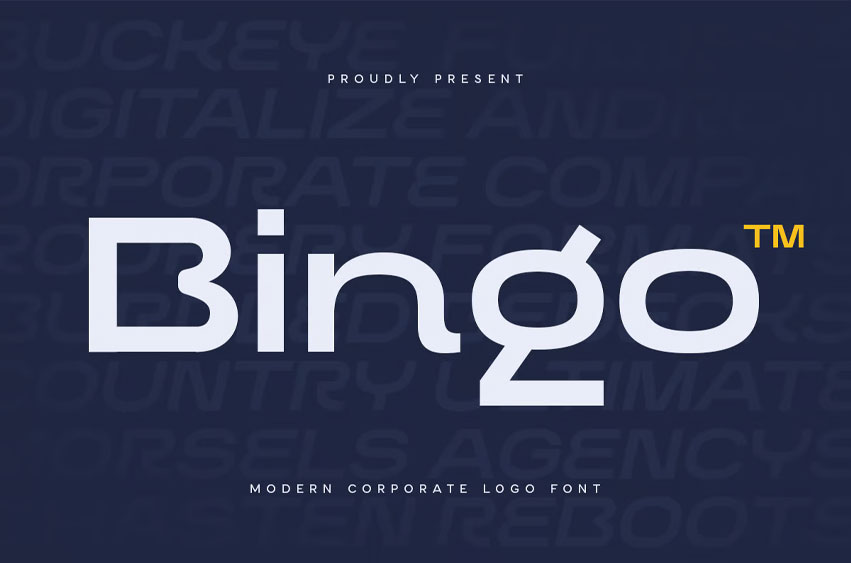
Bingo Logo Font
Bingo Logo Font is a unique Modern Logo Font that we created especially for Professional and Modern branding needs that will give you a more Unique look, with alternates in unique shapes that will be ready to add value to your brand. It is so nice to leverage designers or product owners who need solutions to make their designs look more Professional and modern. And especially for this font, We prepared alternate characters to help you create unlimited variations for your creative needs.